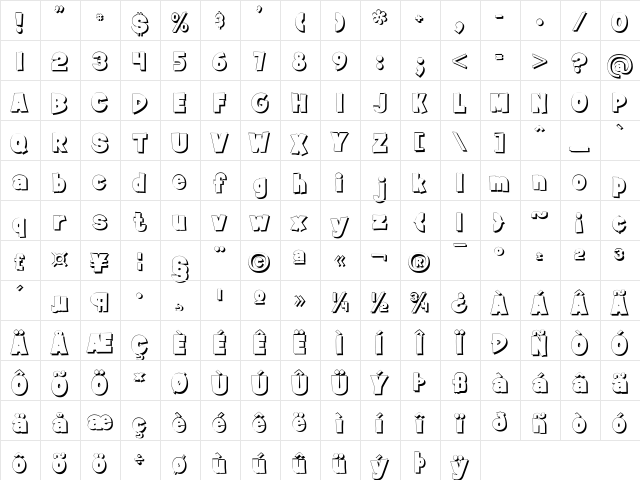
Jan Brady Shadow Regular
Design Context for Jan Brady Shadow Typeface
Jan Brady Shadow is built around its visual character rather than neutral utility — its distinctive forms are designed to make an impression at display sizes.
Font Pairing: Pair with a clean neutral sans-serif for body copy to let Jan Brady Shadow's character lead without overwhelming the composition.
Pro Tip: Treat Jan Brady Shadow as the centrepiece of your typographic hierarchy. One strong heading set in a decorative face can carry an entire layout.